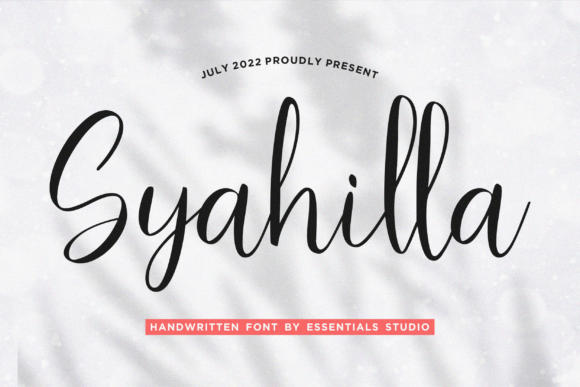
Feast your eyes on Syahilla, the enchanting script font that will captivate your designs and elevate your creations to new heights. Its graceful curves and alluring ligatures dance across any surface, leaving an imprint of sophistication and timeless charm.
With Syahilla, your words take on a life of their own, exuding an air of elegance that commands attention. Its versatility knows no bounds, lending itself beautifully to a myriad of design endeavors, from wedding invitations to branding materials and everything in between.
Whether you seek to evoke a sense of romance or convey a touch of luxury, Syahilla is the perfect choice. Its exquisite character set empowers you to craft designs that resonate deeply and leave a lasting impression.
Indulge in the beauty of Syahilla and let your creativity soar. Let its delicate strokes transform your visions into works of art that are destined to enchant and inspire.